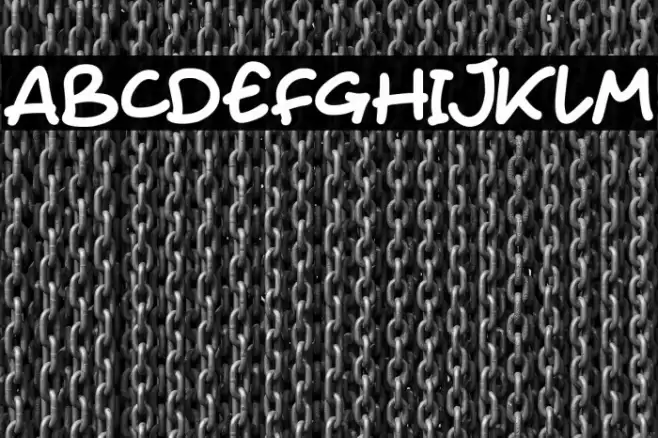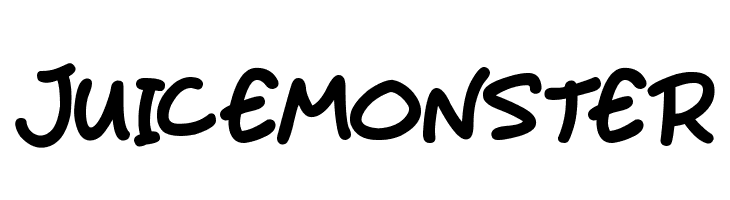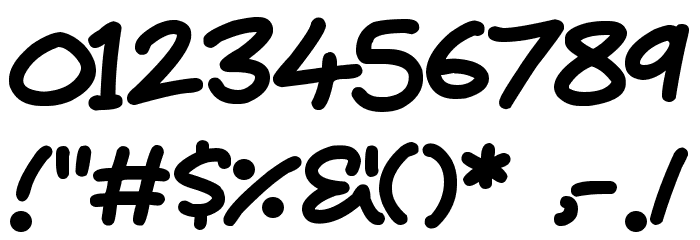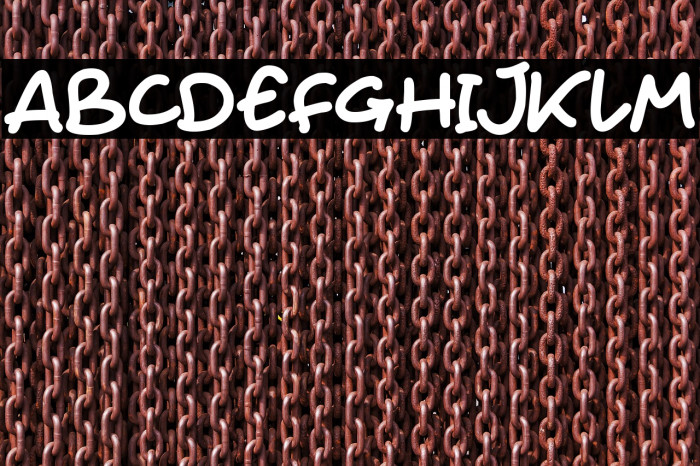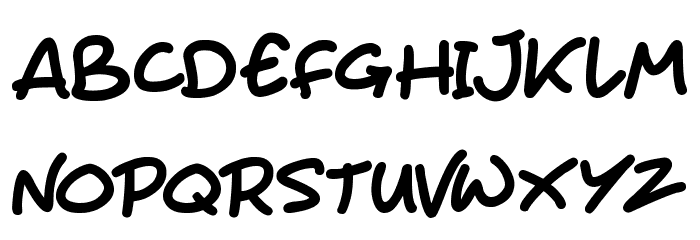
Juice Monster Font
Juice Monster Description
This playful and energetic font features bold, rounded characters with a handwritten style. The letters are slightly slanted, giving a dynamic and casual feel. The strokes are thick and consistent, providing a strong presence on the page. The font's informal and friendly appearance makes it suitable for creative and fun projects. The numbers and special characters maintain the same lively style, ensuring a cohesive look across all text elements. Its unique character shapes and smooth curves make it stand out, perfect for grabbing attention.
A bold, handwritten-style font with rounded, playful characters from Comic fonts.
- Proposed Projects: Ideal for children's books, playful branding, casual invitations, and creative posters.
- Overall Style: Playful